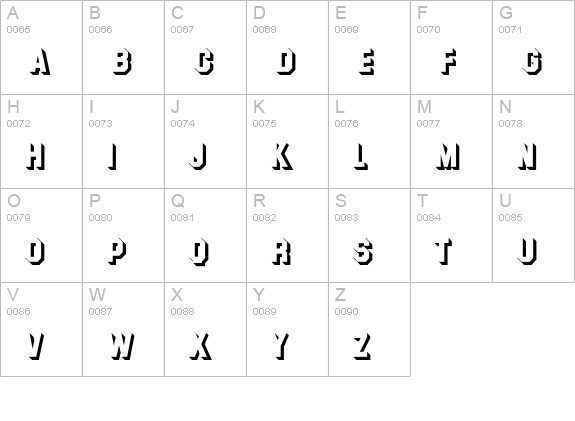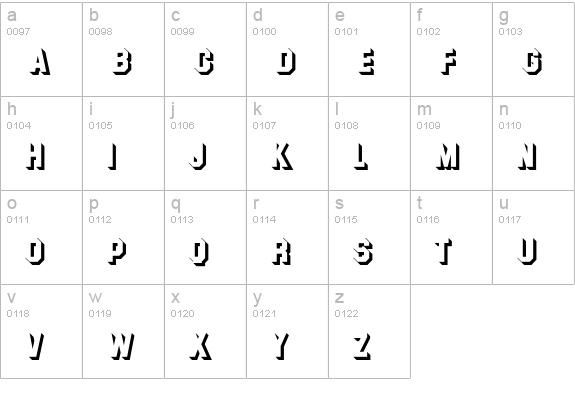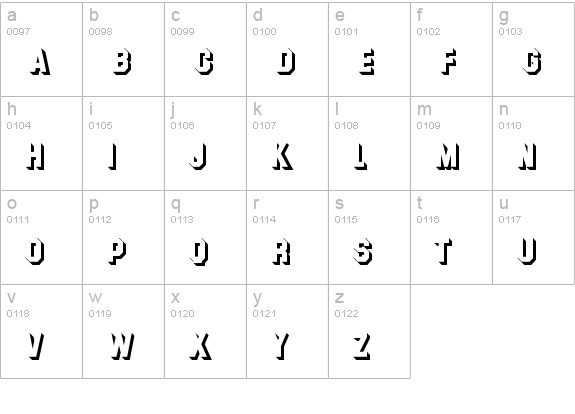
SuperstarEF-Shadow Font Details
Introducing SuperstarEF-Shadow font, a stylish and bold typeface that exudes confidence and charm. This modern display font is perfect for making a statement in your designs, whether it be for branding, packaging, posters, or social media graphics. SuperstarEF-Shadow font features sleek lines and sharp edges that give it a contemporary edge, making it stand out from the crowd. Its unique shadow effect adds depth and dimension to your text, creating a striking visual impact. And the best part? SuperstarEF-Shadow font is completely free to download at FontsMarket.com. That's right, you can elevate your designs with this eye-catching font without spending a dime. So why wait? Download SuperstarEF-Shadow font today and take your projects to the next level!